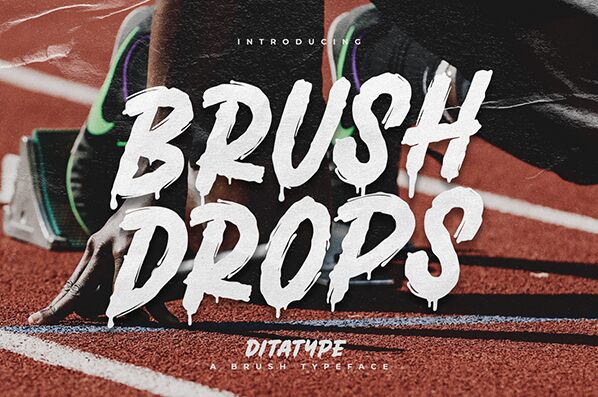
Brush Drops
Brush Drops, designed by Ditatype, is a captivating brush font that exudes a sense of raw, primal energy. Its bold, expressive strokes effortlessly convey a sense of movement and dynamism, evoking a feeling of untamed, feral elegance. The font's distinct, jagged edges lend it a bold, intimidating aesthetic, making it an ideal choice for projects seeking to make a strong, visceral impact.
Brush Drops' versatility shines through its ability to seamlessly transition between display and body text applications. Its striking appearance lends itself well to a variety of design contexts, from horror-themed branding and editorial layouts to gritty, punk-inspired artwork and signage. The font's versatility ensures it can elevate a wide range of creative projects, making it a valuable asset for designers seeking to capture a powerful, emotive visual style.